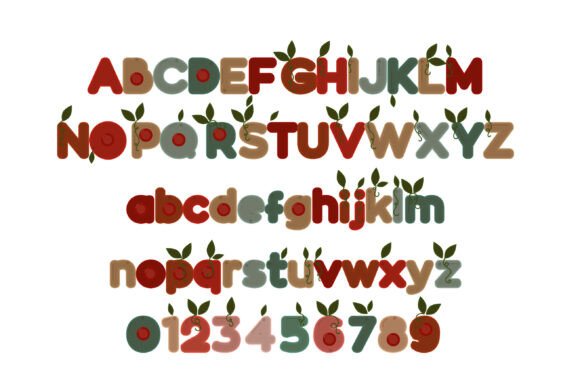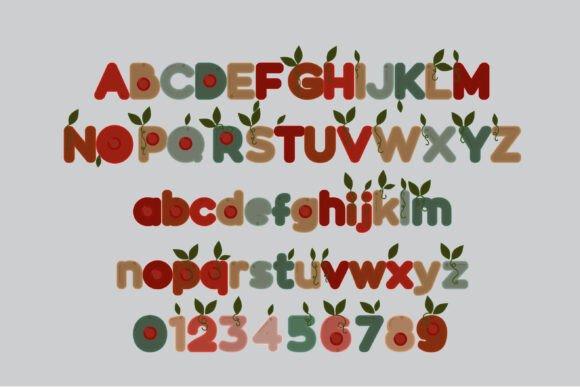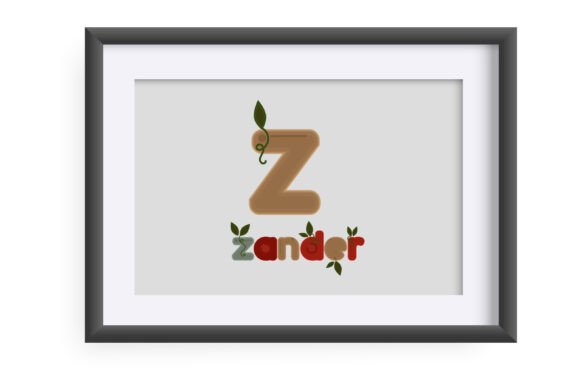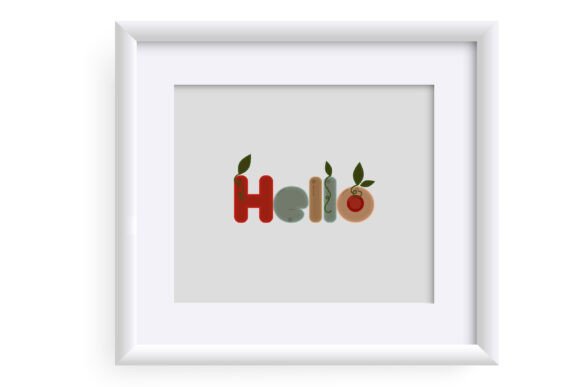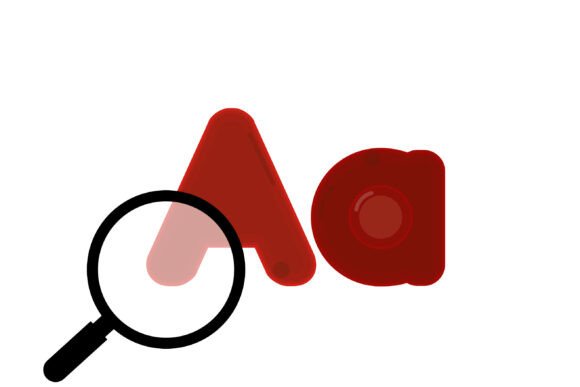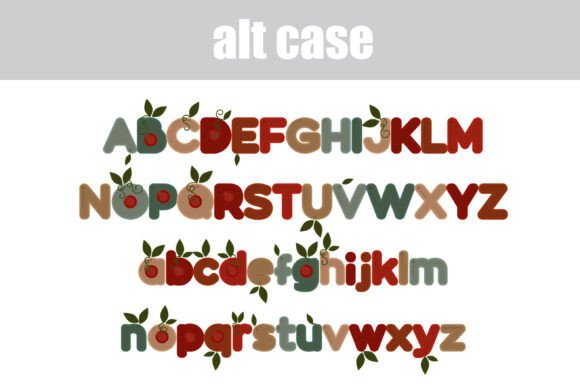
Introduction to Christmasberry Font
This full-color font features a chunky sans serif with Christmas berries and leaves throughout.
There is an alt version you can access through your systemโ€™s character map that contains additional colors of all the letters This font works best for titles, displays, posters and more.
Key Features of Christmasberry Font